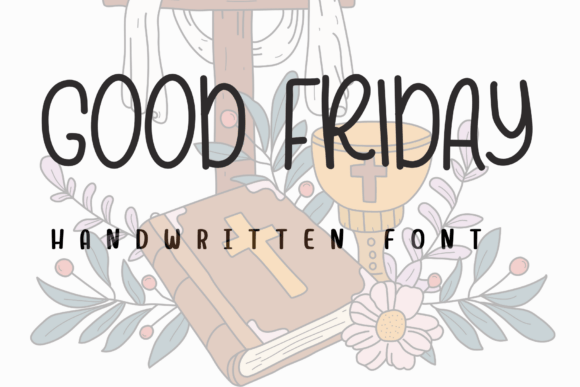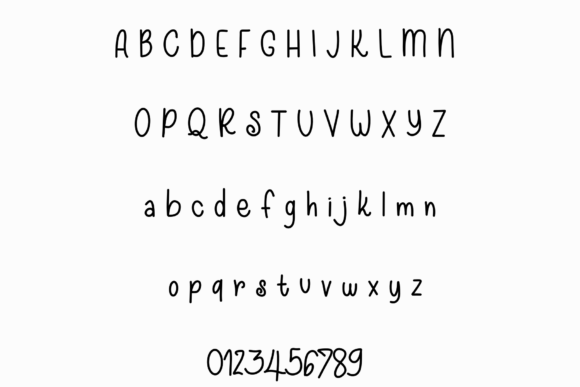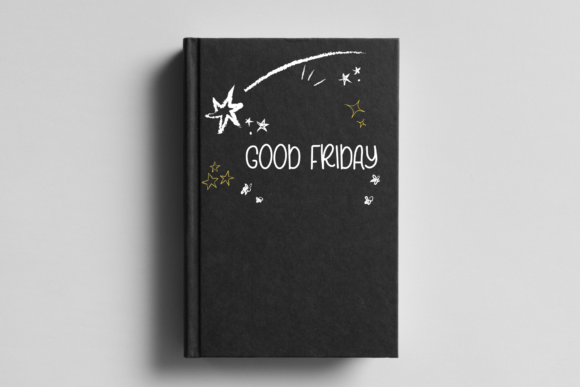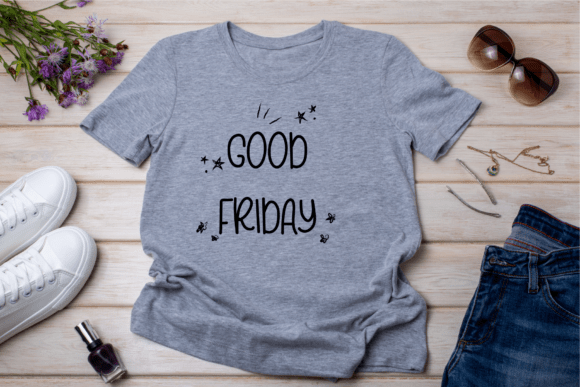
Good Friday Font: A Sweet Handwritten Font for Cricut & DIY Projects
About the Good Friday Font
Meet Good Friday Font, a stunning font that brings a touch of elegance and professionalism to any design. Good Friday is a sweet and friendly script font. You can use it for taking notes, writing a diary, or making greeting cards. However, you can still use it for other designs, such as banners, content, mugs, cards, shirts, stationery, social media posts, and more!
Good Friday’s friendly, informal style makes it ideal for branding projects targeting a youthful or feminine demographic, particularly those emphasizing handmade or artisanal qualities. It excels in short text applications like logos, social media graphics, and packaging for products like confectionery or cosmetics. Avoid using it for large blocks of text or body copy; its script nature hinders readability in extended passages.
For optimal visual balance, pair Good Friday with a clean sans-serif like Open Sans for body text or a geometric sans-serif like Futura for a more modern feel. A subtle serif like Merriweather could also provide a sophisticated counterpoint, enhancing readability while maintaining a cohesive aesthetic.
The font’s overall personality is best described as cheerful and approachable, making it unsuitable for projects requiring a sense of authority or sophistication. Consider using it sparingly as an accent font to avoid overwhelming the design.
Good Friday Font Usage Examples
Good Friday Font Example